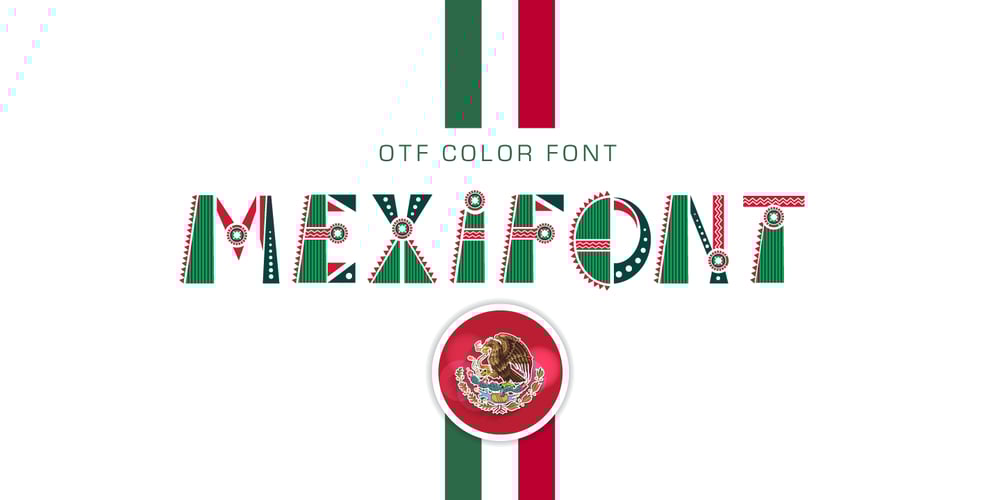
Mexifont
Mexifont font
Mexifont Font Family was designed by Ksenia Kuznetsova and published by Peliken. Mexifont contains 1 styles and family package options. OTF color font “Mexifont” Mexican National flag color creative letters and spanish national language symbols. Alphabet Mexico with capital letters, numbers, punctuation mark. You can use this font for design quotes prints on t-shirts, sport souvenirs, mexican food menu and other. OpenType-SVG Font was designed with Fontself Maker in Illustrator CC. Contains only uppercase letters and digits. WARNING Color fonts are pretty new technology – they currently show up in Photoshop CC 2017+, Illustrator CC 2018 and some Mac apps. Learn more about color font support on third-party apps here: https://www.colorfonts.wtf/